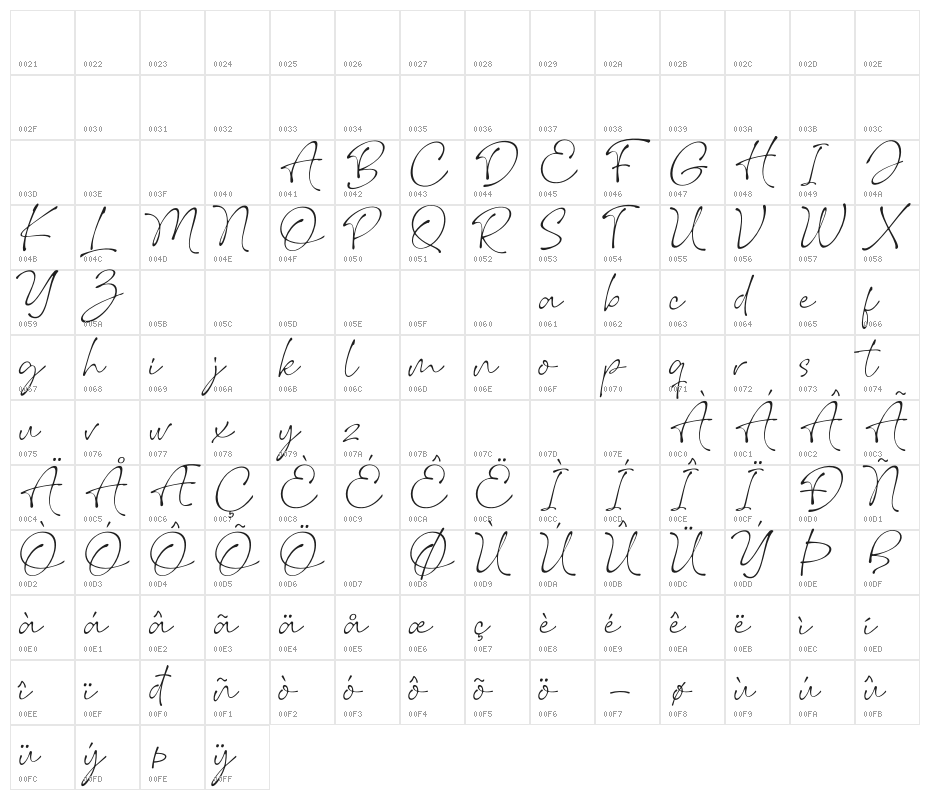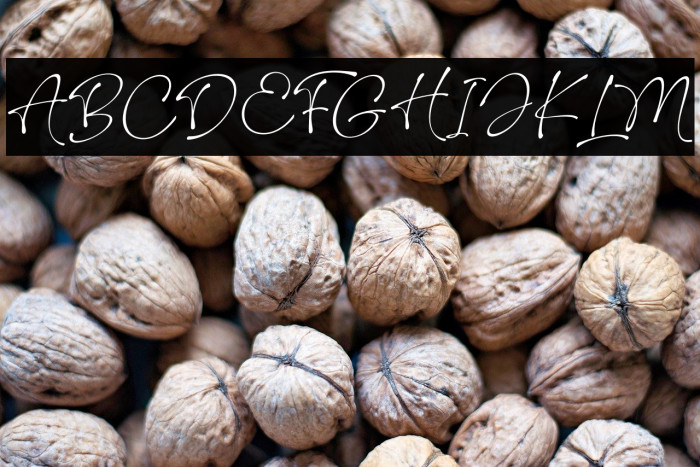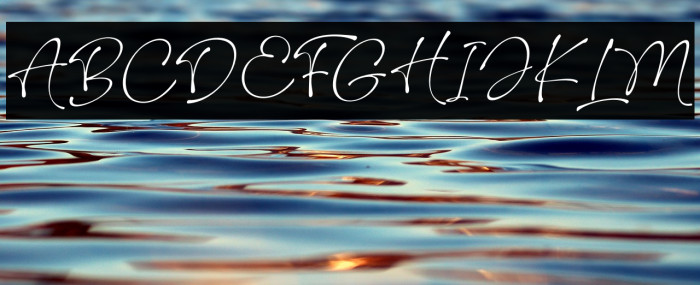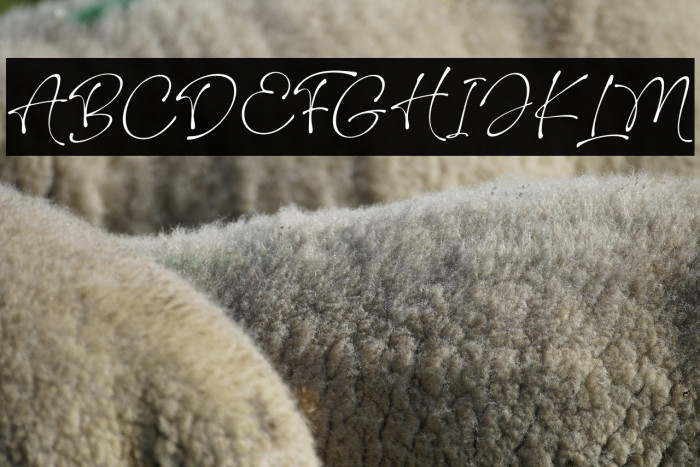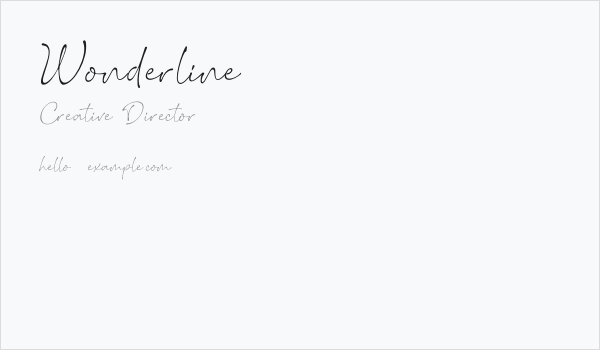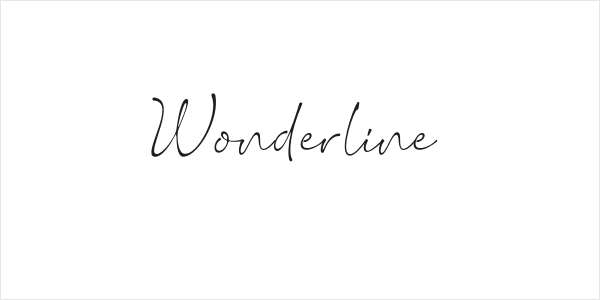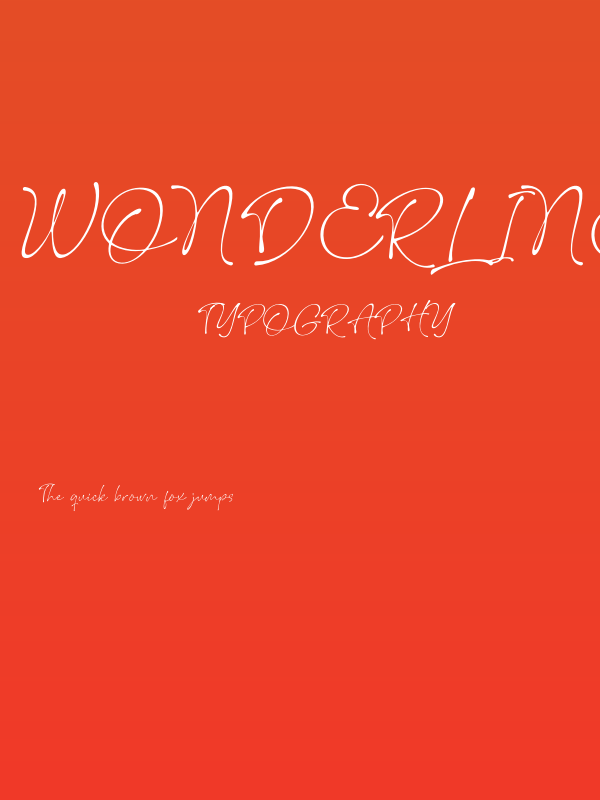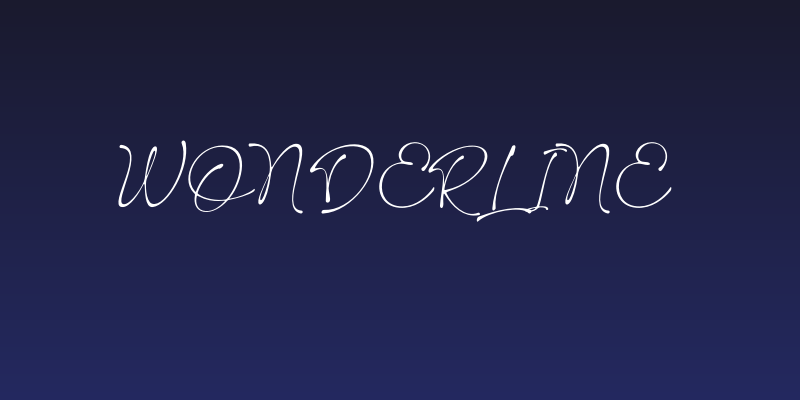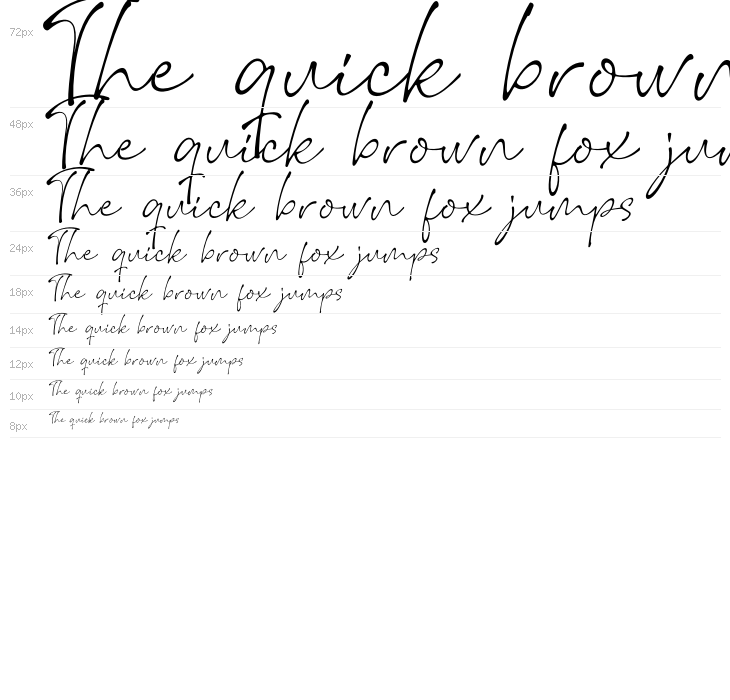
Wonderline Font
Wonderline Description
This font features an elegant and fluid script style, characterized by its smooth, flowing lines and graceful curves. The uppercase letters are slightly more structured, maintaining a balance between formality and artistic flair. The lowercase letters exhibit a more pronounced cursive style, with some letters extending below the baseline, adding to its dynamic appearance. The overall design is reminiscent of traditional calligraphy, yet it maintains a modern touch that enhances its versatility. The font's delicate strokes and consistent line weight make it suitable for a variety of creative applications.
| Proposed Projects | Ideal for wedding invitations, greeting cards, branding, and elegant logo designs. |